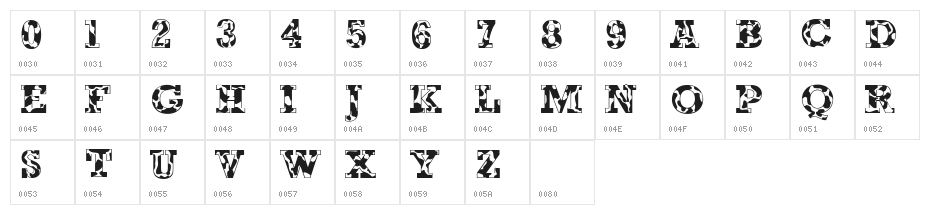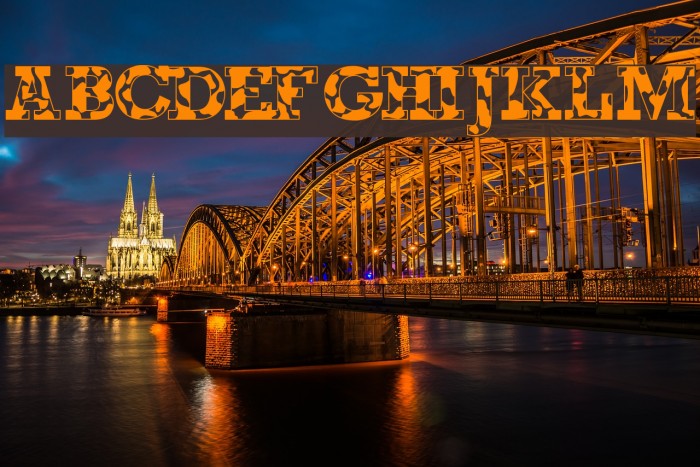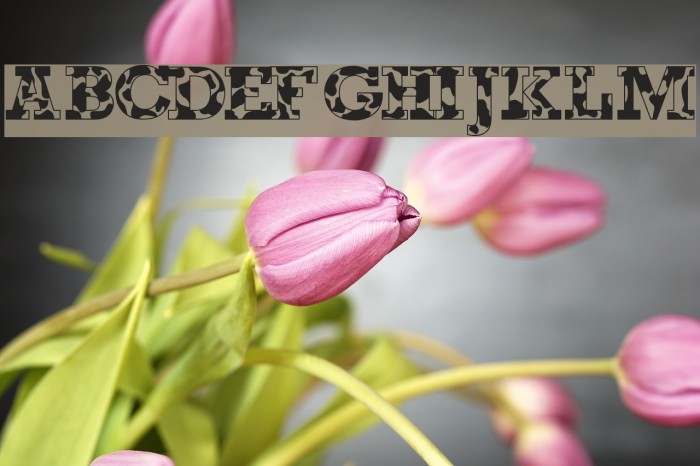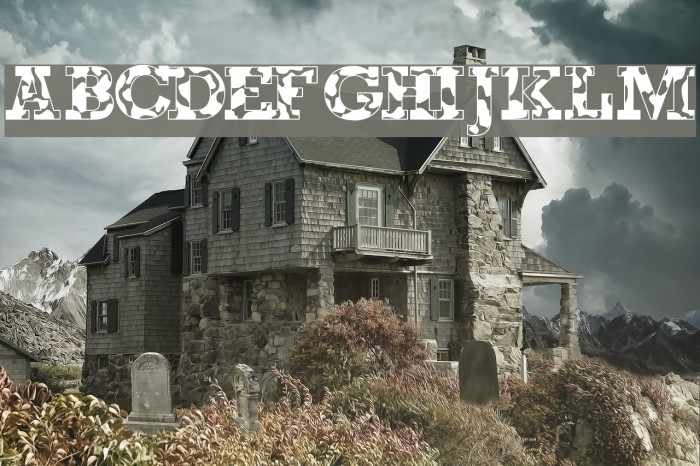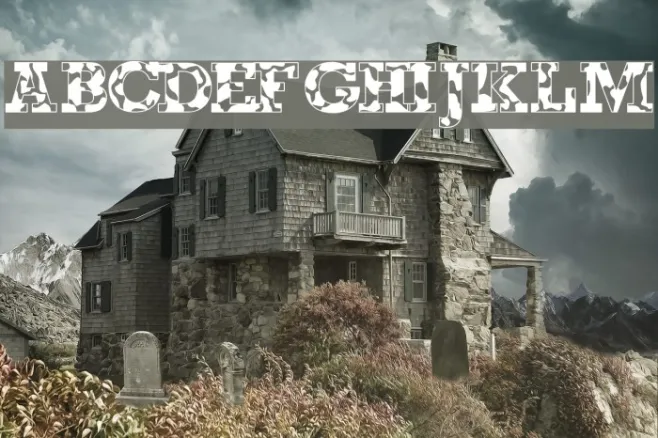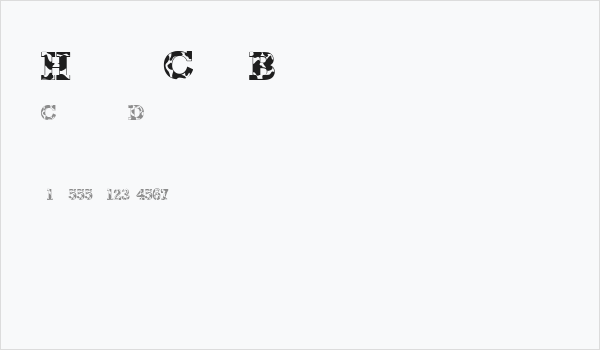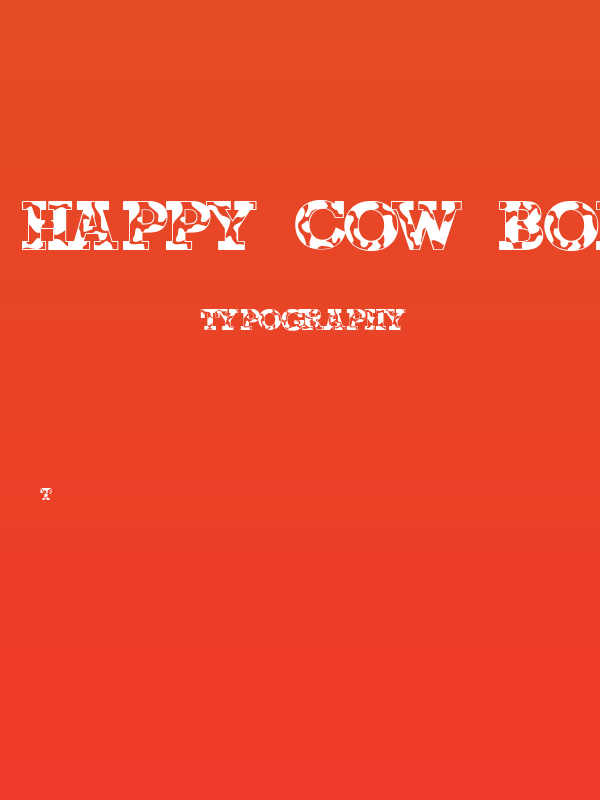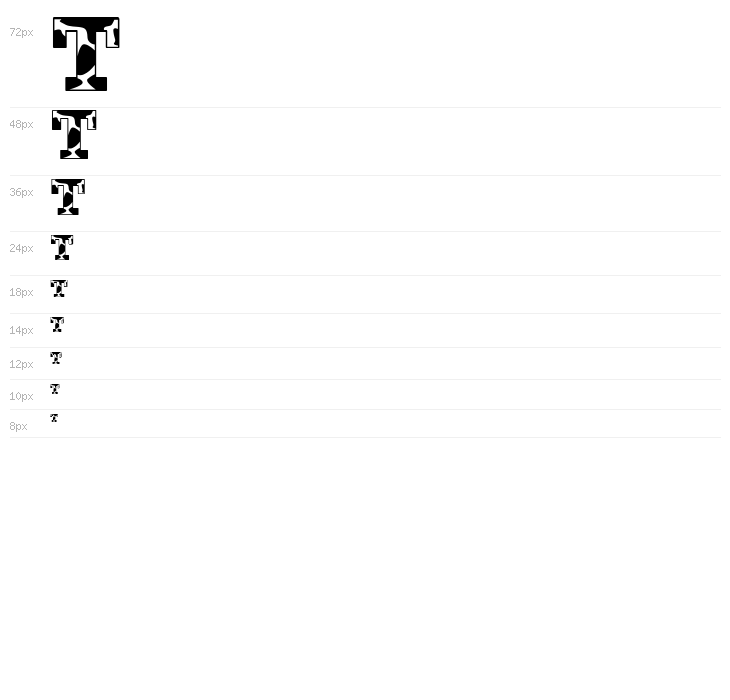
Happy Cow Bold Font
Happy Cow Bold Description
This playful and bold font features a unique cow pattern within each character, giving it a distinctive and whimsical appearance. The uppercase letters are designed with a strong, slab serif style, while the numbers maintain a consistent and bold look. The font's design is eye-catching and ideal for projects that require a fun and engaging aesthetic. The cow pattern adds a layer of texture and interest, making it suitable for creative and informal applications.